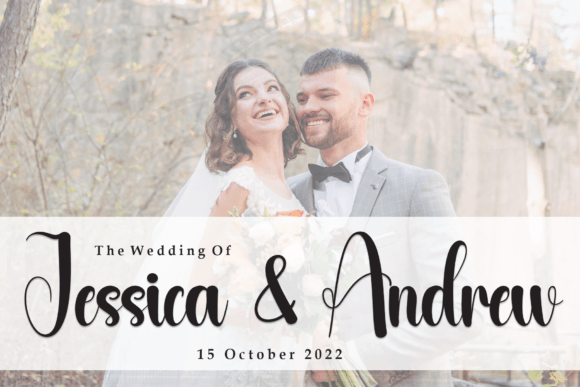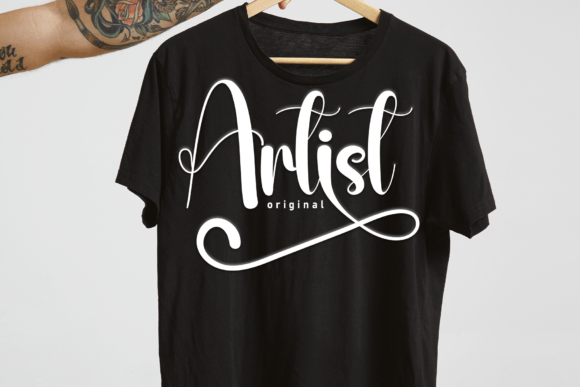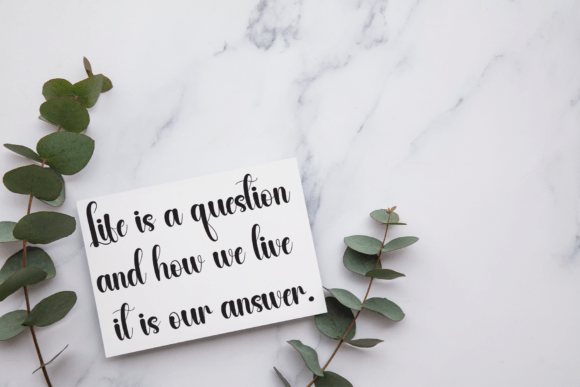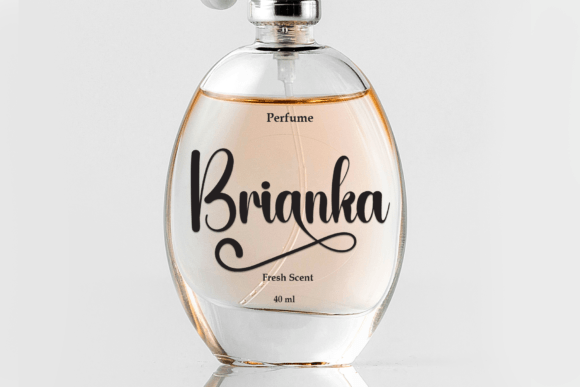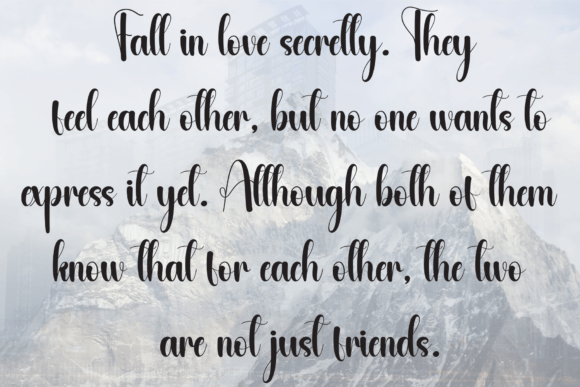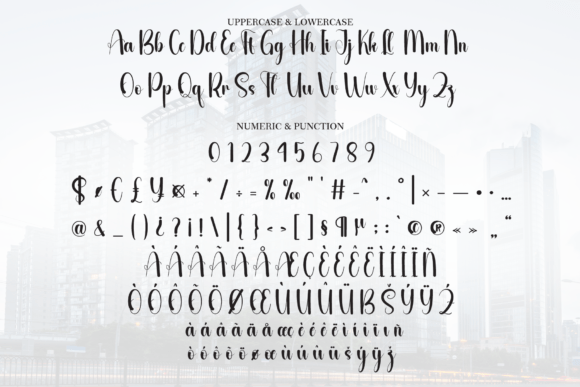
Apartment Font: Add a Sweet and Friendly Touch to Your Designs
Are you looking for a font that can add a playful and charming touch to your designs? Look no further than Apartment Font! This sweet and friendly handwritten display font is perfect for creating eye-catching wedding invitations, cards, and other designs that require a fun and whimsical feel.
What Makes Apartment Font So Special?
Apartment Font is a beautifully crafted font that boasts a unique and charming personality. Its handwritten style gives it a personal and approachable feel, making it ideal for designs that require a touch of warmth and friendliness. The font’s sweet and delicate curves make it perfect for creating beautiful wedding invitations, birthday cards, and other celebratory designs.
Characteristics of Apartment Font
- Cute and Fun: Apartment Font is a playful and fun font that can add a touch of whimsy to your designs.
- Handwritten Style: The font’s handwritten style gives it a personal and approachable feel.
- Sweet and Friendly: The font’s sweet and delicate curves make it perfect for creating beautiful and charming designs.
- Display Font: Apartment Font is a display font, making it perfect for headlines, titles, and other design elements that require a bold and eye-catching font.
Uses of Apartment Font
Apartment Font is a versatile font that can be used in a variety of design projects. Here are some ideas for using this beautiful font:
- Wedding Invitations: Apartment Font is perfect for creating beautiful and elegant wedding invitations that set the tone for a special day.
- Cards: The font is ideal for creating birthday cards, anniversary cards, and other celebratory cards that require a personal touch.
- Party Invitations: Apartment Font can be used to create fun and playful party invitations that will get your guests excited for the celebration.
- Social Media Graphics: The font can be used to create eye-catching social media graphics that require a touch of personality and whimsy.
Why Designers and Crafters Love Apartment Font
Apartment Font has become a favorite among designers and crafters due to its unique and charming personality. Here are some reasons why:
- Easy to Read: The font is easy to read, making it perfect for designs that require a clear and legible font.
- Versatile: Apartment Font can be used in a variety of design projects, from wedding invitations to social media graphics.
- Unique: The font’s handwritten style gives it a unique and charming personality that sets it apart from other fonts.
Tips for Using Apartment Font
Here are some tips for using Apartment Font in your designs:
- Pair with Other Fonts: Apartment Font can be paired with other fonts to create a unique and interesting design.
- Use for Headlines: The font is perfect for headlines and titles, making it a great choice for designs that require a bold and eye-catching font.
- Experiment with Colors: Apartment Font can be used with a variety of colors to create a unique and eye-catching design.
Apartment Font is a sweet and friendly handwritten display font that can add a touch of whimsy and charm to your designs. Its unique and charming personality makes it perfect for creating beautiful wedding invitations, cards, and other designs that require a fun and playful touch. Whether you’re a designer or crafter, Apartment Font is a great choice for any project that requires a personal and approachable feel.